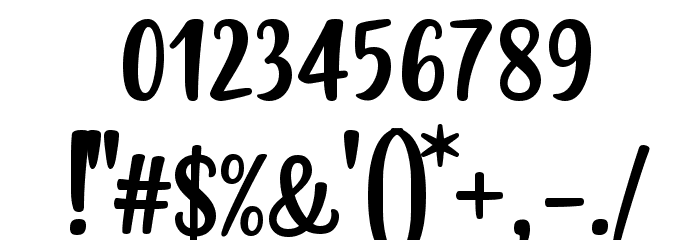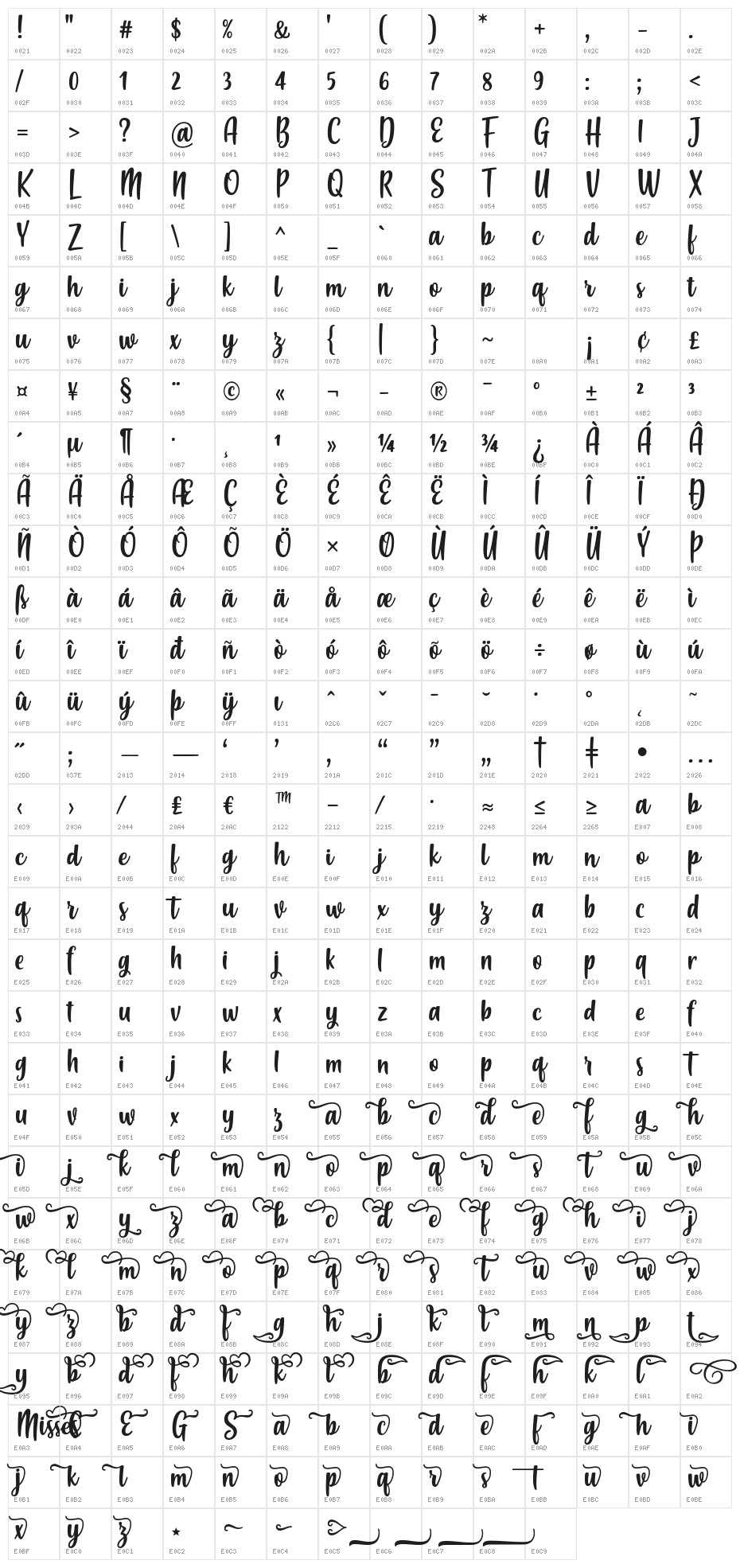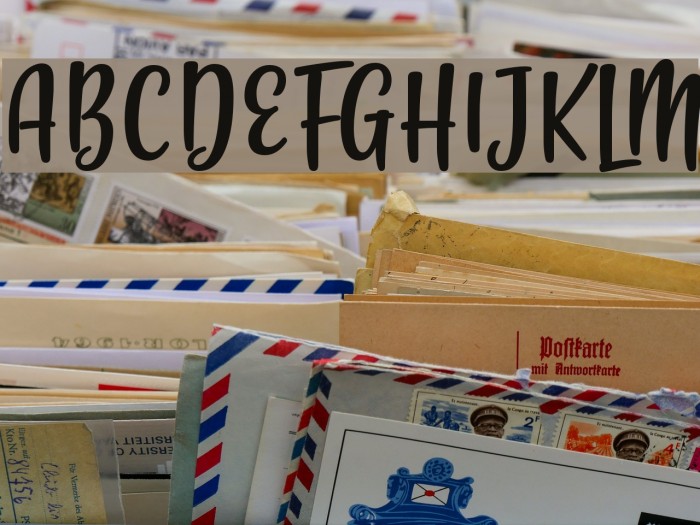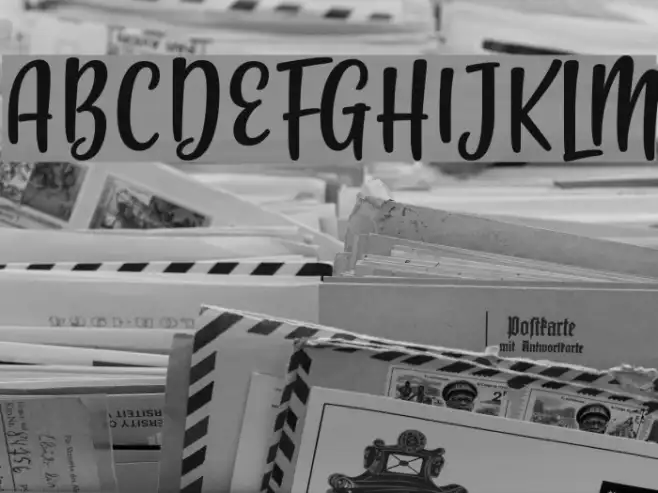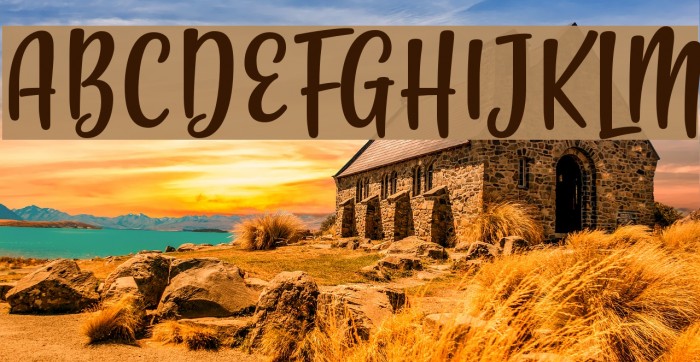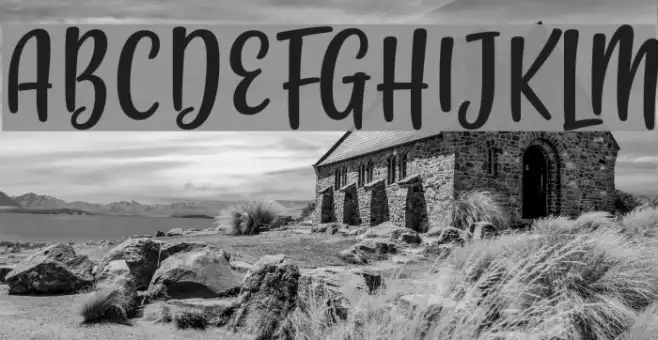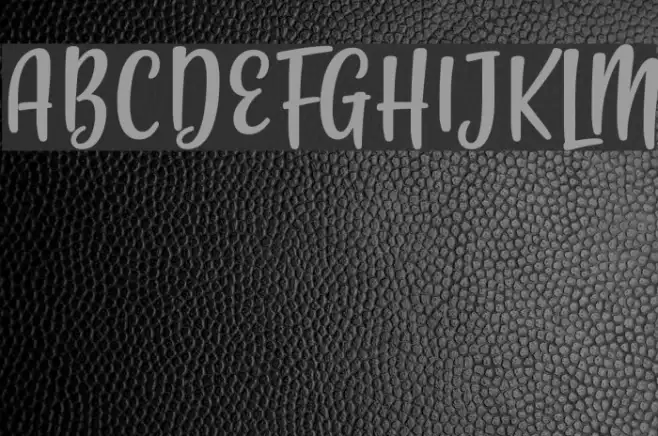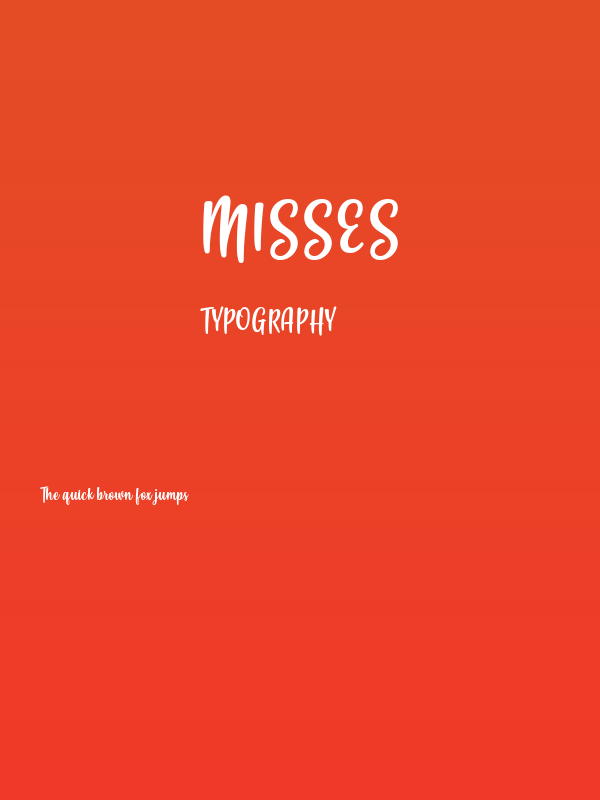
Misses Font
Misses Description
This font features a playful and energetic script style with a handwritten appearance. The letters are bold and slightly condensed, giving them a strong presence. The strokes are smooth and fluid, with a consistent thickness that adds to the font's readability. The uppercase and lowercase letters maintain a cohesive look, while the numerals and special characters complement the overall design. This font exudes a casual yet stylish vibe, making it suitable for a variety of creative projects.
| Proposed Projects | Ideal for greeting cards, invitations, logos, and social media graphics. |